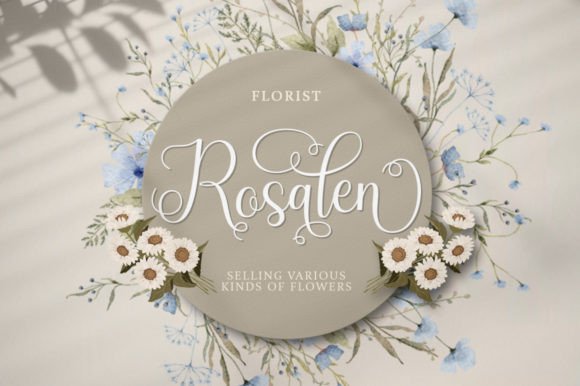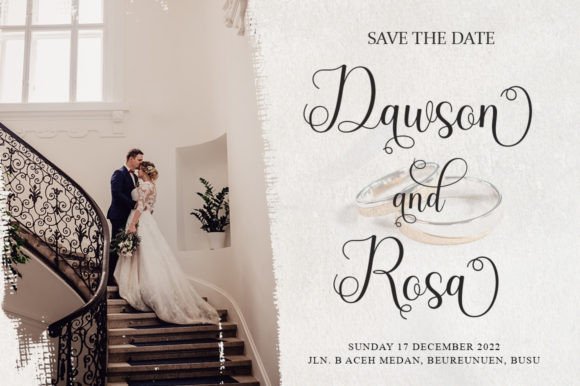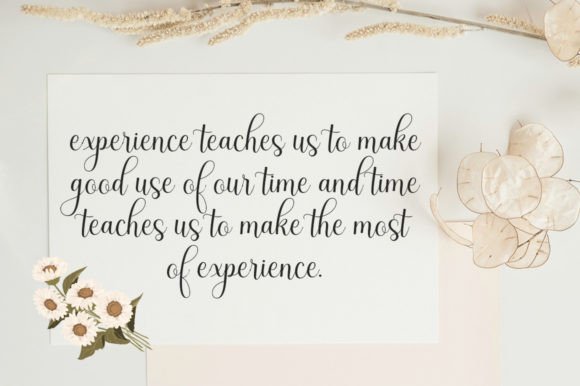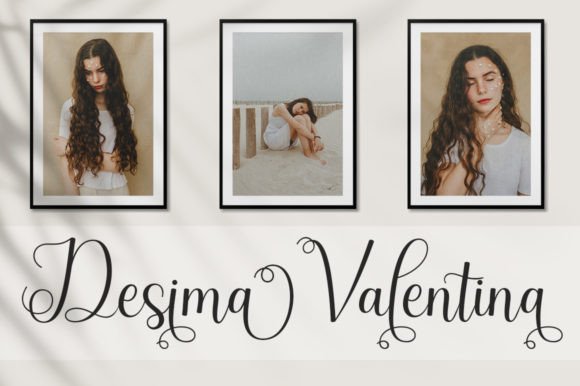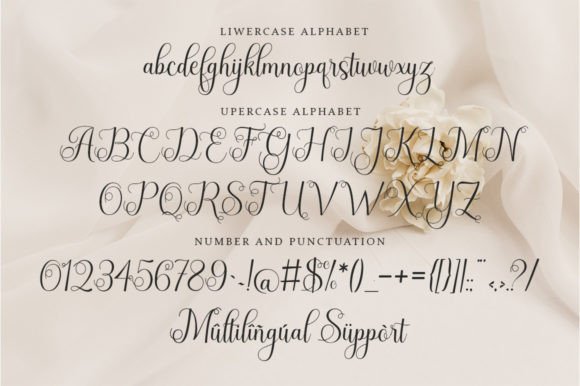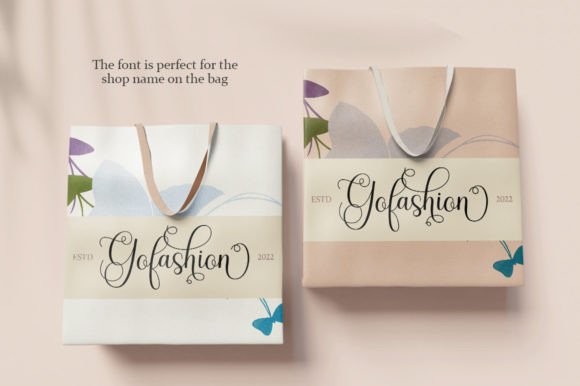
Introduction to Rosalen Font
Imagine you’re working on a creative project, pouring your heart and soul into every detail, and you’re still missing that one crucial element to make it truly shine. For many designers, this moment is all too familiar. But what if you had a secret design resource that could elevate your work and leave a lasting impression?
Enter the Rosalen Font, a dazzling script font that’s poised to take your designs to the next level. With its high-quality details and transparent background, this font is a game-changer for any creative project. Whether you’re working on a personal or professional level, the Rosalen Font is a valuable addition to your design arsenal.
Not only is the Rosalen Font a free download, but it’s also an incredibly versatile design tool that can be used across a wide range of creative applications. So why settle for anything less when you can have the best? Discover the magic of the Rosalen Font and take your designs to new heights.
Key Features of Rosalen Font
- High-quality, elegant design suitable for various creative projects
- Comes with a transparent background, making it easy to customize
- Features a clean, modern design ideal for various design applications
- Available in a range of sizes, including small caps and alternate characters
Honest Review: Rosalen Font
I recently stumbled upon the Rosalen Font, and I must say it’s a great addition to any design resource collection. The moment I downloaded it, I was excited to see how it would perform in my creative project.
The first thing I noticed was the high quality of the font. It’s crisp, clean, and has a unique touch to it. I particularly liked how it pairs well with transparent backgrounds, which adds an extra layer of depth to the design.
Here are some things that work well with the Rosalen Font:
- ✨ Unique and elegant design
- ✨ Works well with transparent backgrounds
- ✨ High quality and crisp
- ⚠️ Limited font variations (only a few weights available)
- ⚠️ Not suitable for large-scale text
Overall, I’m quite impressed with the Rosalen Font. It’s a great addition to any design resource collection, and I’d definitely recommend it for smaller creative projects. While it has its limitations, I believe the benefits outweigh the drawbacks.
Rosalen Font
Rosalen Font is a high-quality design resource ideal for creative projects that require a touch of elegance. This free download features a beautiful, cursive script with a transparent background, making it versatile for various design applications.
Tips for Getting the Most Out of Rosalen Font
To maximize the effectiveness of Rosalen Font, consider the following tips:
- Use the font in conjunction with other high-quality design resources
- Experiment with different font sizes and colors
- Combine the font with graphics and images for added visual interest
Rosalen Font is ideal for a variety of creative projects, including:
- Wedding and event graphics
Alternatives to Rosalen Font
Aleo is a high-quality, elegant font suitable for creative projects that require a sophisticated look. It features a transparent background and is available for free download, making it an excellent design resource. When to use: Headings, titles, and body text for high-end websites and magazines. It compares to Rosalen Font as a more refined and polished alternative.
Lato is a modern sans-serif font ideal for creative projects that demand a clean and minimalistic design. It’s a free download and features a high-quality design, making it a great design resource. When to use: Body text, headings, and titles for modern websites, apps, and magazines. It compares to Rosalen Font as a more contemporary and versatile alternative.
Merriweather is a classic serif font suitable for creative projects that require a traditional and elegant look. It features a transparent background and is available for free download, making it a great design resource. When to use: Body text, headings, and titles for historical websites, books, and magazines. It compares to Rosalen Font as a more traditional and formal alternative.